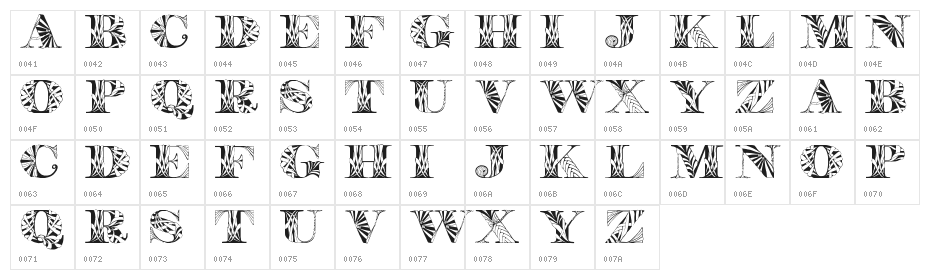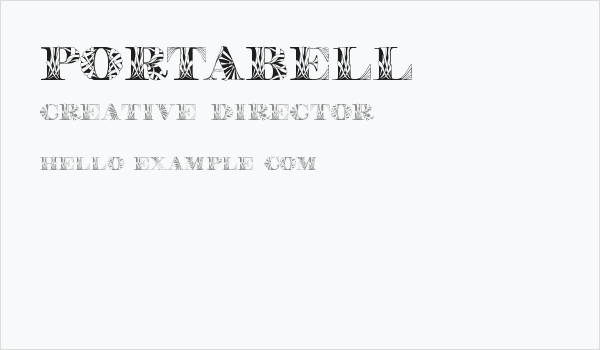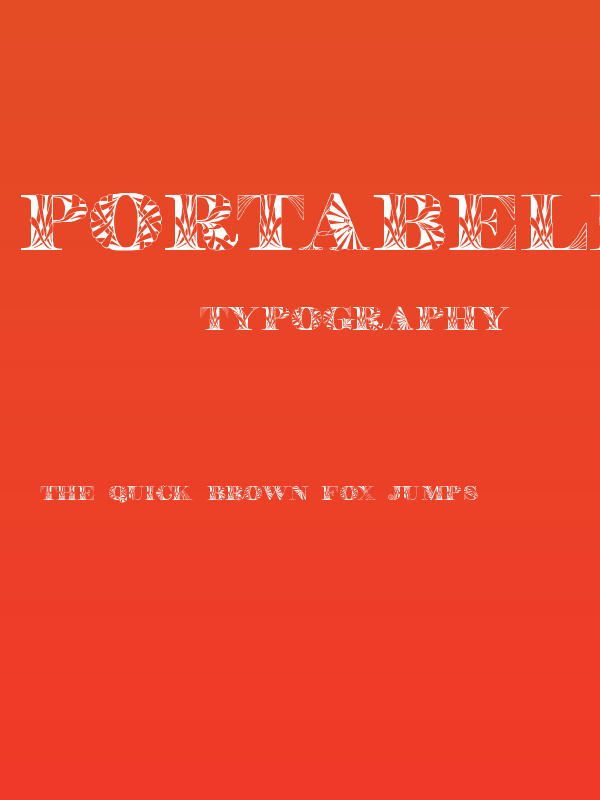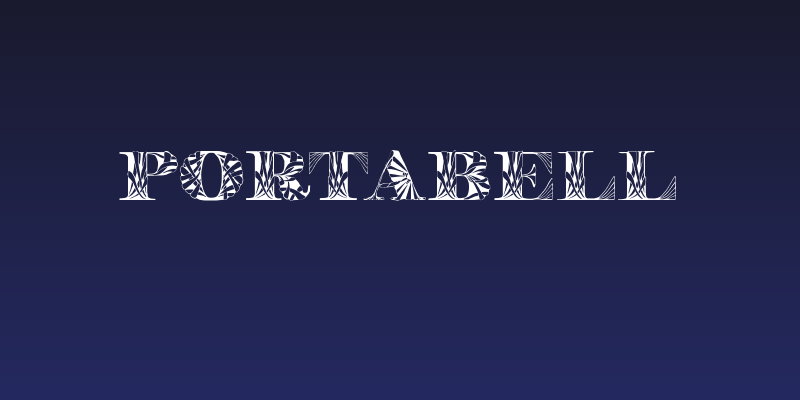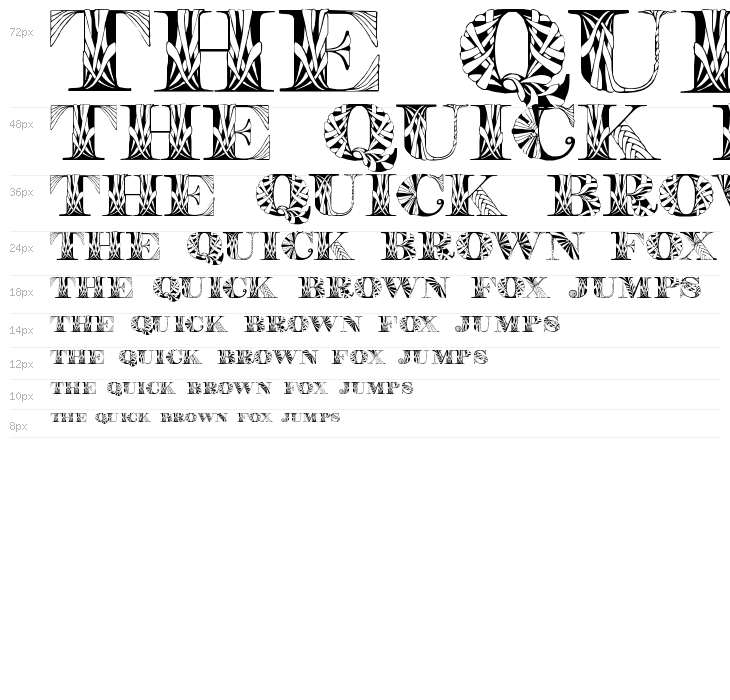
Portabell Font
Portabell Description
This font features an intricate decorative style with elaborate patterns filling each character. The uppercase letters are adorned with detailed, swirling motifs that give a sense of elegance and complexity. The design is reminiscent of Art Nouveau, with its organic and flowing lines. Each letter is distinct, yet they all share a cohesive aesthetic that makes the font suitable for artistic and ornamental purposes. The characters are bold and eye-catching, making them ideal for use in designs where the text needs to stand out. The overall appearance is both sophisticated and playful, offering a unique visual appeal.
| Proposed Projects | Ideal for artistic projects, invitations, posters, and branding that require a decorative and eye-catching typeface. |